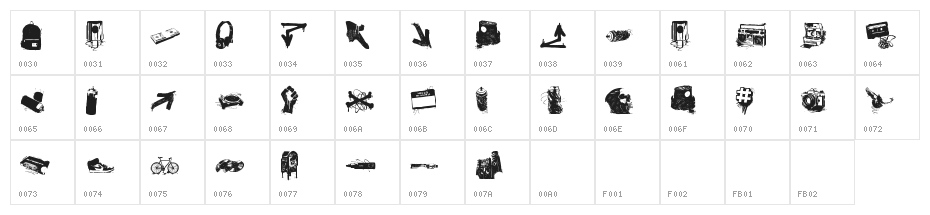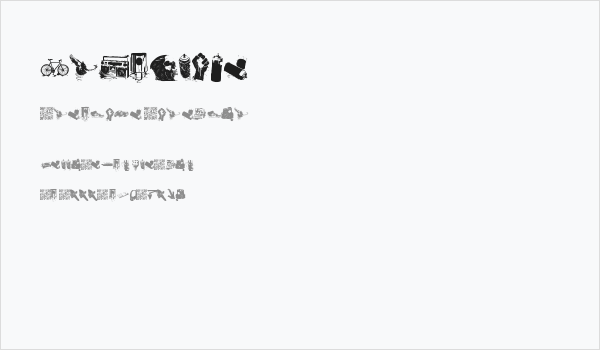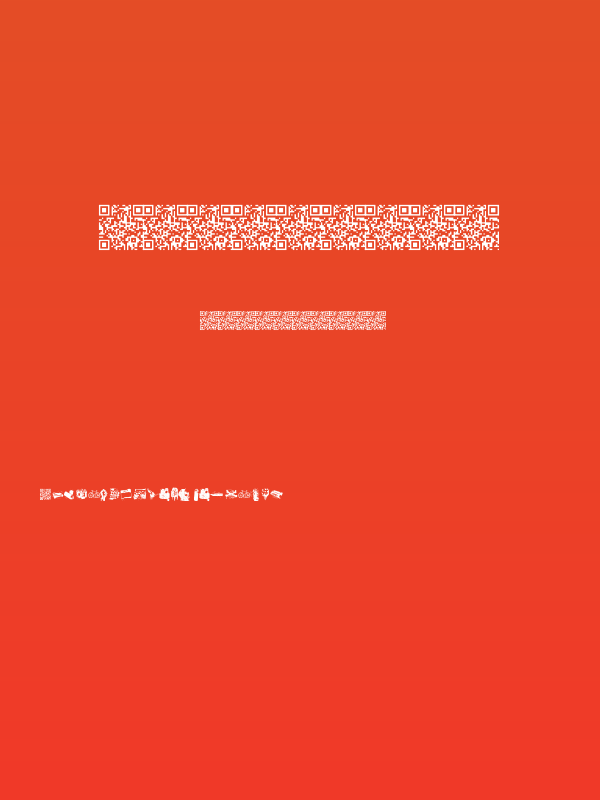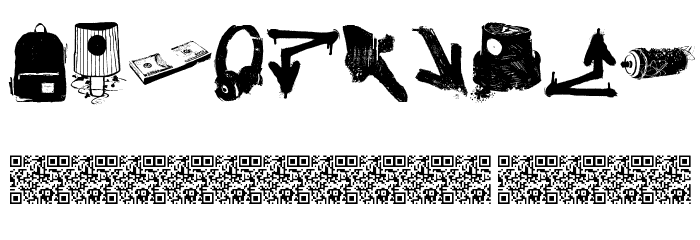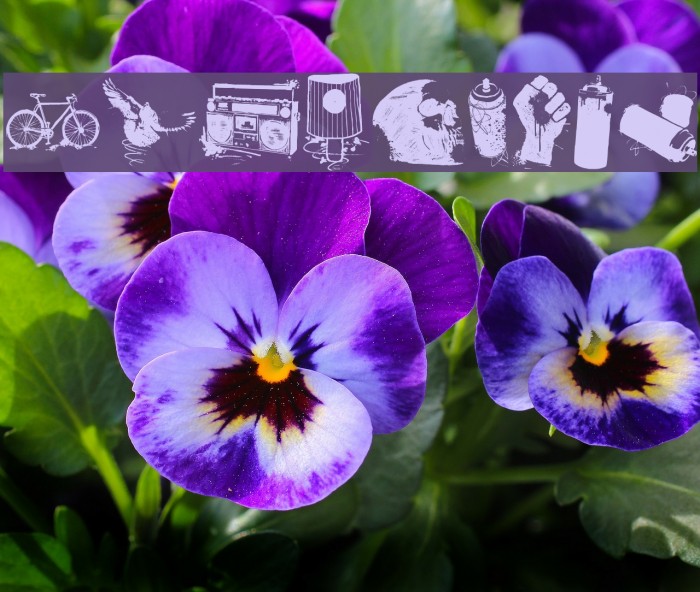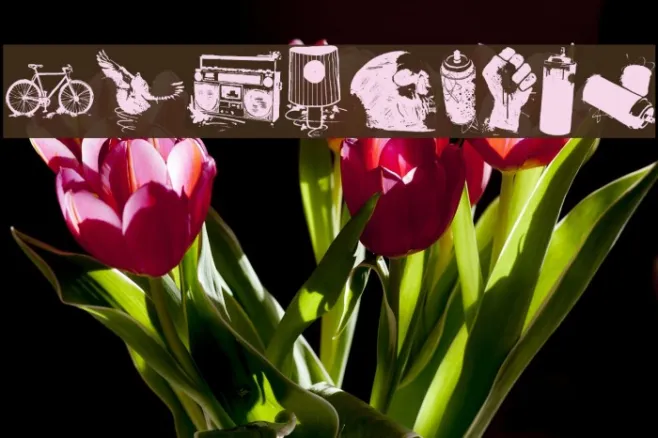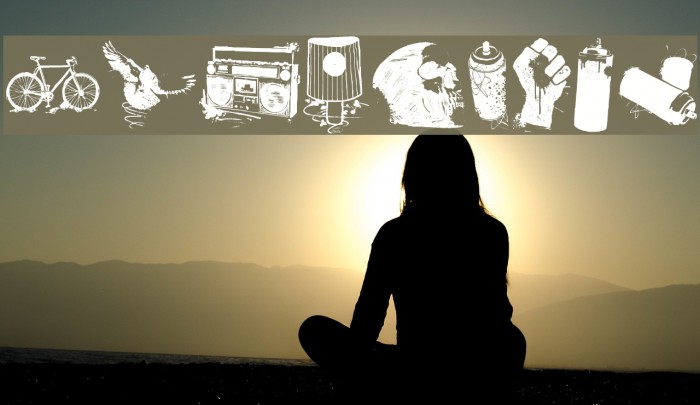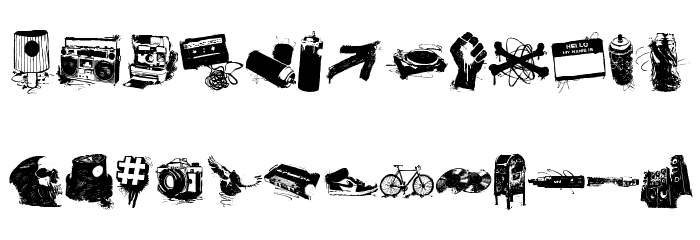
urbanlife Font
urbanlife Description
A highly decorative, urban-themed dingbat font featuring grungy illustrations of street objects such as boomboxes, spray cans, arrows, bikes, cameras, and QR code borders. The glyphs are detailed, textured, and evoke a gritty city atmosphere.
| Overall Style | Decorative, Urban, Grunge |
| Use Case | Logos, Posters, Themed graphics, Decorative borders |
| Proposed Projects | Streetwear branding, event posters, album covers, urban art projects, graffiti-inspired designs. |